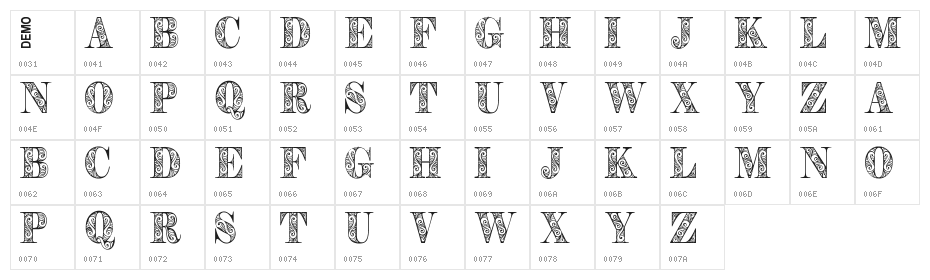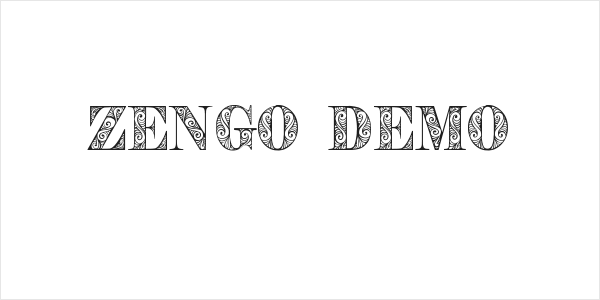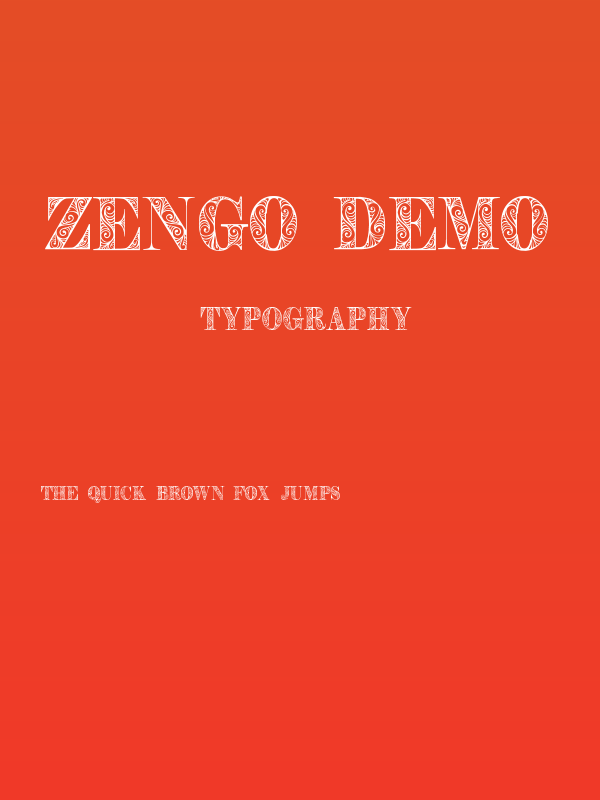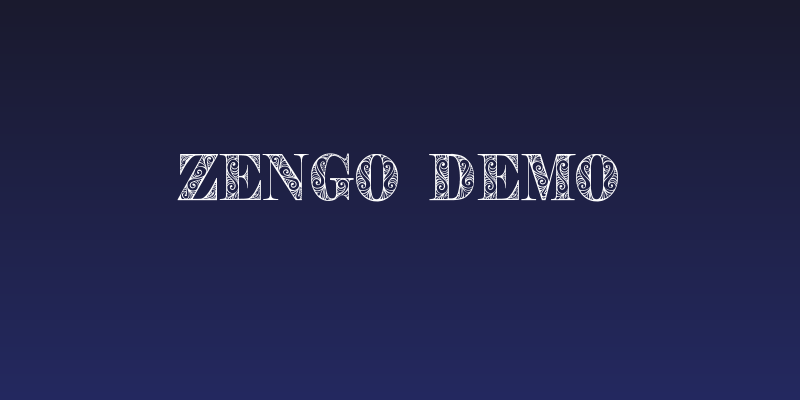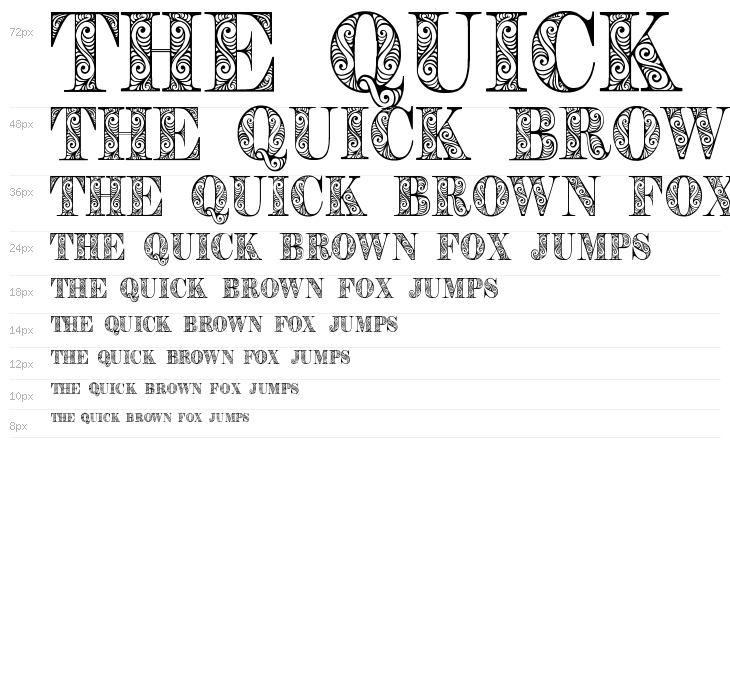
Zengo Demo Font
Zengo Demo Description
This font is a decorative typeface that features intricate, swirling patterns within each letterform, giving it a highly ornamental and artistic appearance. The uppercase letters are bold and commanding, with each character adorned with elaborate filigree-like details that create a sense of elegance and sophistication. The font maintains a consistent weight throughout, ensuring readability despite its decorative nature. The overall style is reminiscent of vintage or classical design, making it suitable for projects that require a touch of grandeur and flair. The spacing between characters is normal, allowing the intricate details to be appreciated without compromising legibility.
| Proposed Projects | Ideal for wedding invitations, luxury branding, event posters, and decorative headings. |